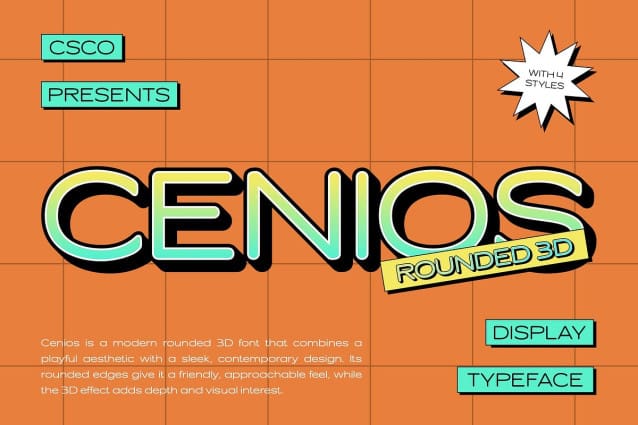
Cenios Rounded 3D Font
Cenios Rounded 3D Font is a modern sans serif font that stands out with its expanded and rounded shapes, creating a soft and approachable impression. The smooth, rounded lines evoke a sense of warmth and friendliness, making it an excellent choice for designs that aim to connect with audiences on a personal level. Its clean and contemporary look is versatile enough to be applied across various design applications, from digital platforms to print materials.
Enhancing Visual Appeal with 3D Effect The addition of a captivating 3D effect gives Cenios Rounded depth and dimension, enhancing its visual appeal and making it more engaging. This dimensional quality allows the font to create a dynamic presence, drawing attention while maintaining clarity. The interplay of light and shadow in the 3D effect adds a playful touch that can elevate any design project, ensuring that your message resonates with viewers.
Ideal for Branding and Marketing Materials Cenios Rounded 3D is particularly well-suited for branding, advertising, and marketing materials where a modern and dynamic impression is essential. Its friendly appearance is ideal for projects targeting diverse audiences, including children, families, and young adults. Whether used in promotional campaigns, social media graphics, or product packaging, this font effectively communicates an innovative and playful character, making it memorable and impactful.